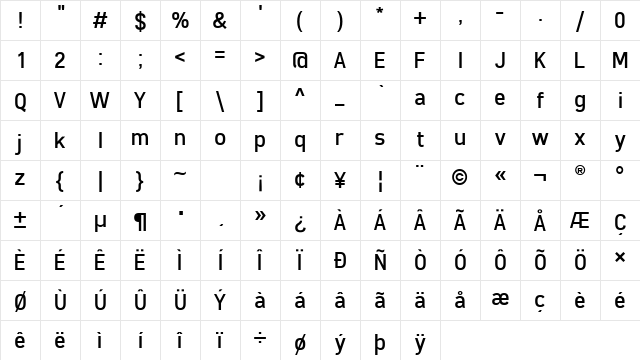
Complete Freeroad Regular glyph index. Displaying only characters natively supported by Freeroad Regular font.
Freeroad is a composed and adaptable typeface that performs quietly and consistently across a wide range of design contexts.